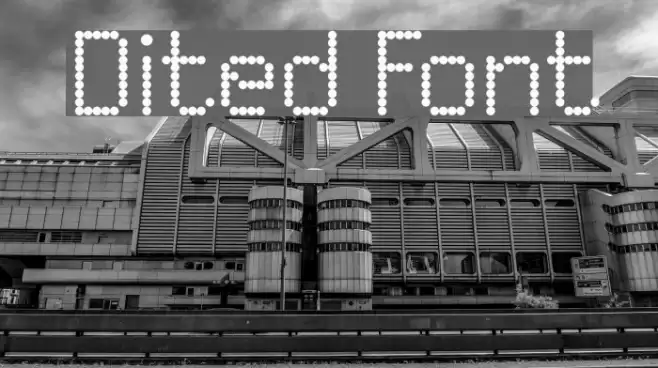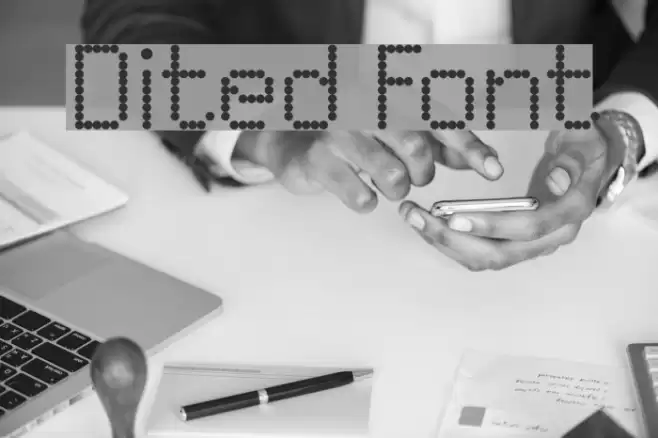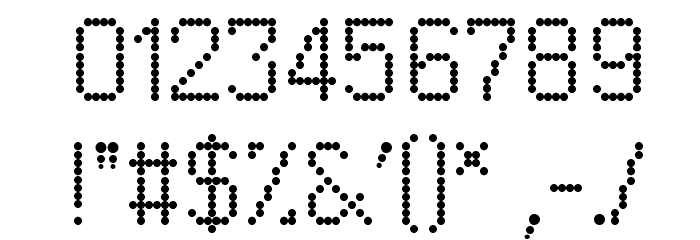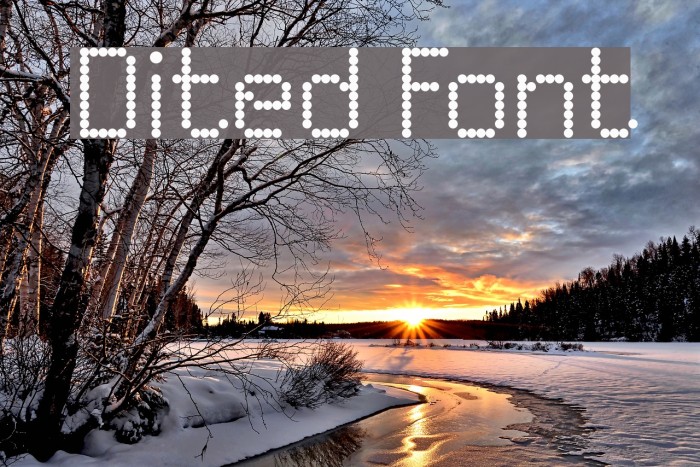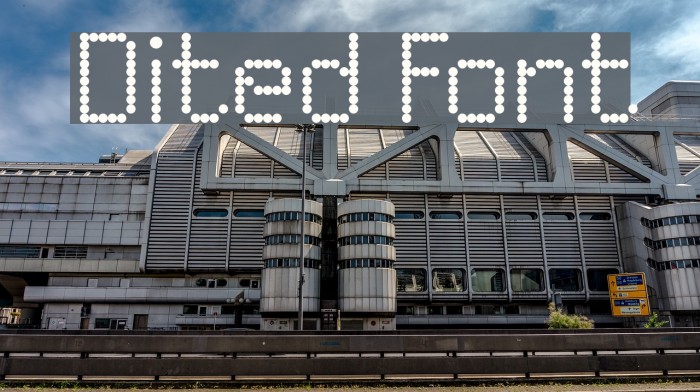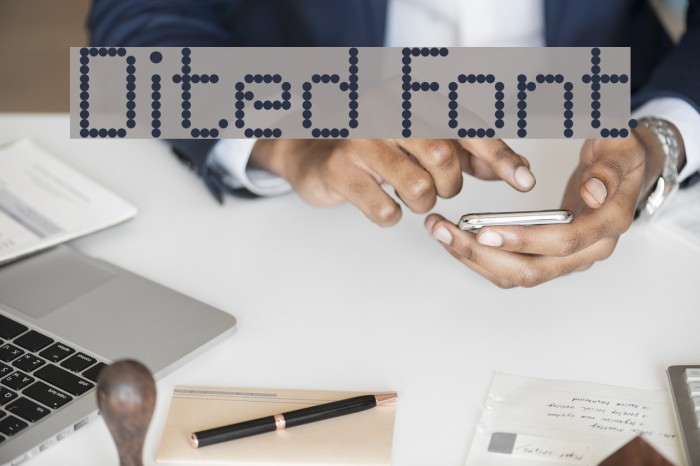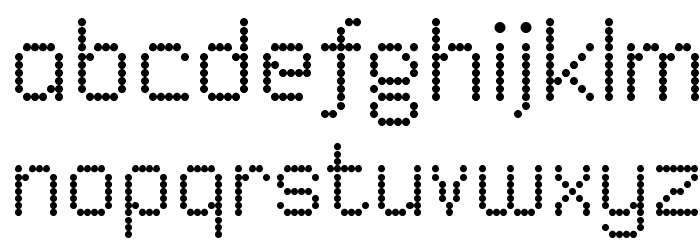
Dited Font
Dited Description
This font features a unique dotted design, where each character is composed of a series of evenly spaced dots. The style is geometric and structured, giving it a digital or retro feel reminiscent of early LED displays or dot matrix printers. The uppercase and lowercase letters maintain a consistent height and width, ensuring readability despite the unconventional design. Numbers and special characters follow the same pattern, providing a cohesive look across all glyphs. The font's playful yet precise nature makes it suitable for creative projects that require a modern, tech-inspired aesthetic.
A geometric, dotted font with a digital, retro feel from Uncategorized fonts.
- Proposed Projects: Ideal for digital displays, tech-themed designs, retro posters, and creative branding projects.
- Use Case: Headlines, Logos, Digital displays